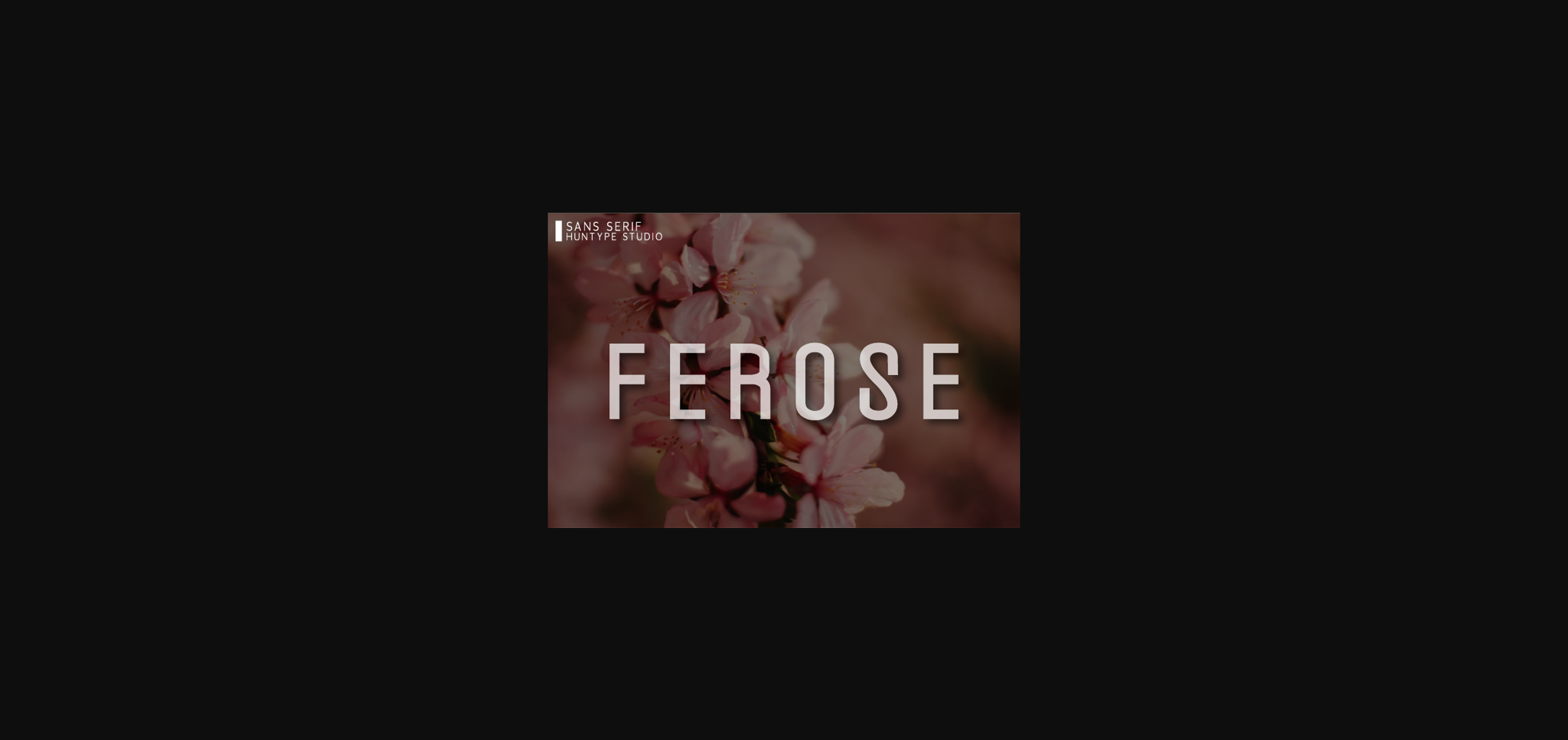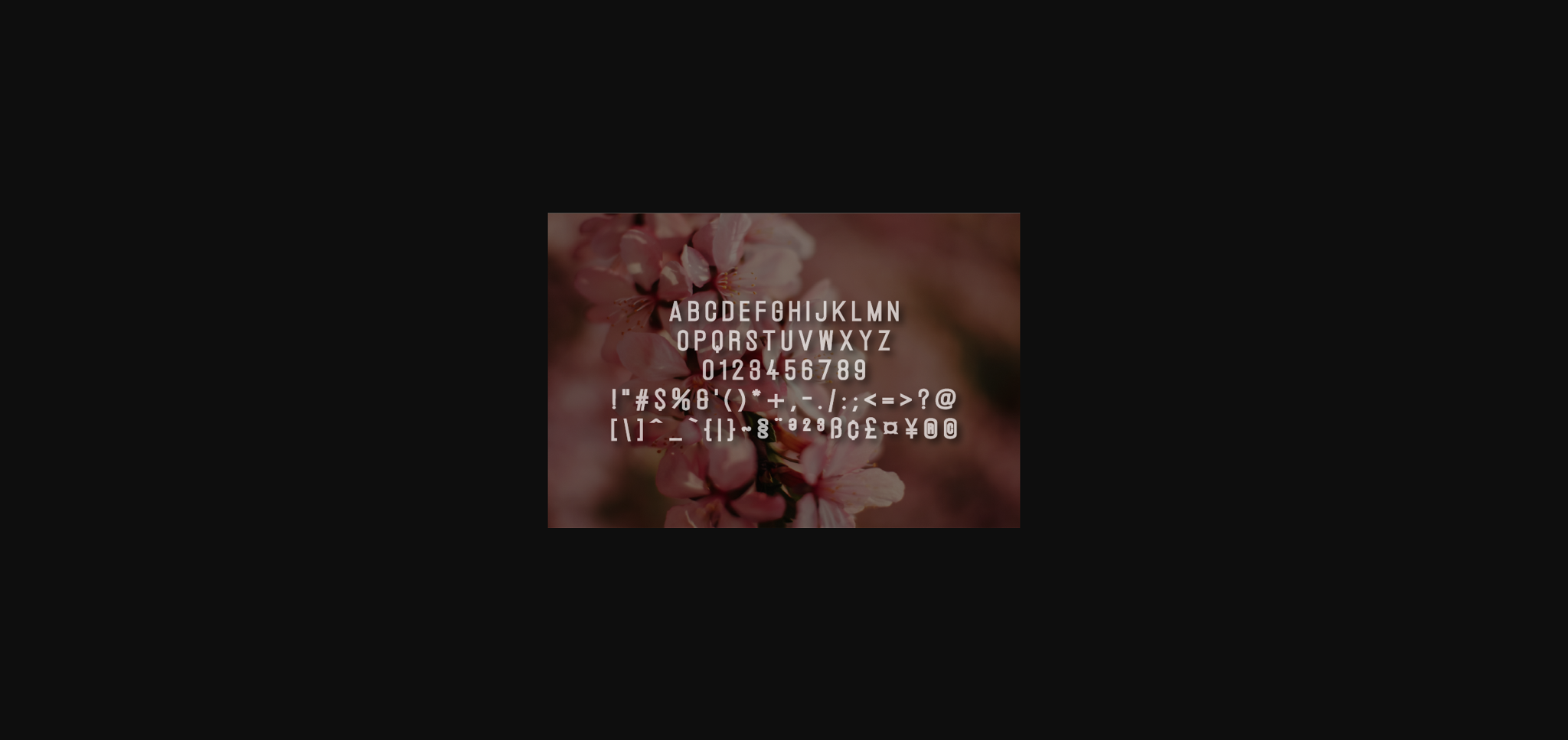
About Ferose Font
Ferose is a modern sans serif font. It will look particularly adept when used in logos, branding, packaging design, and much more. This masterfully designed font is a true must-have.